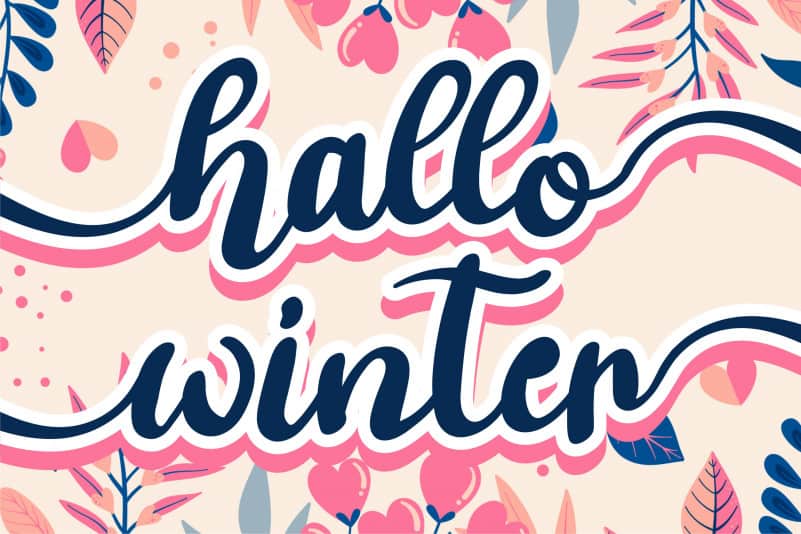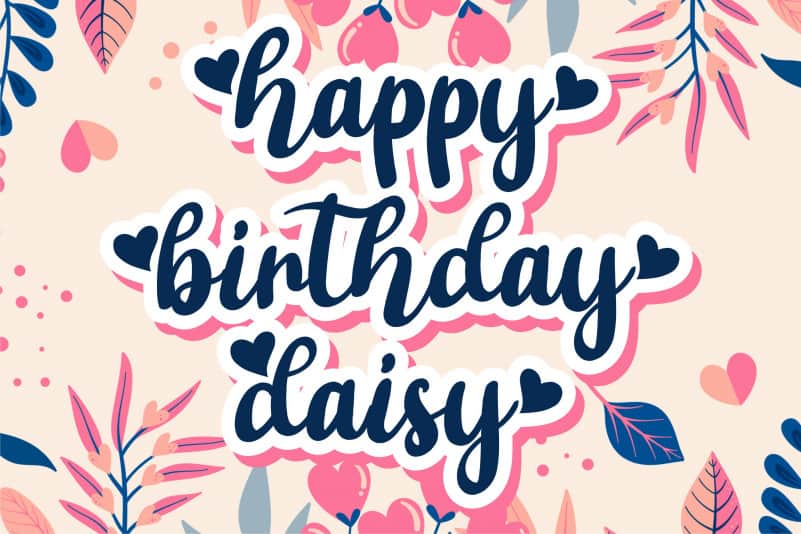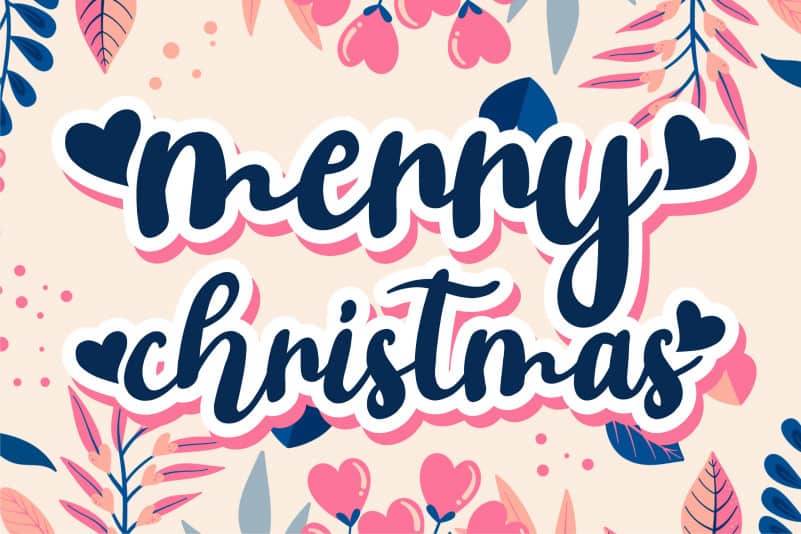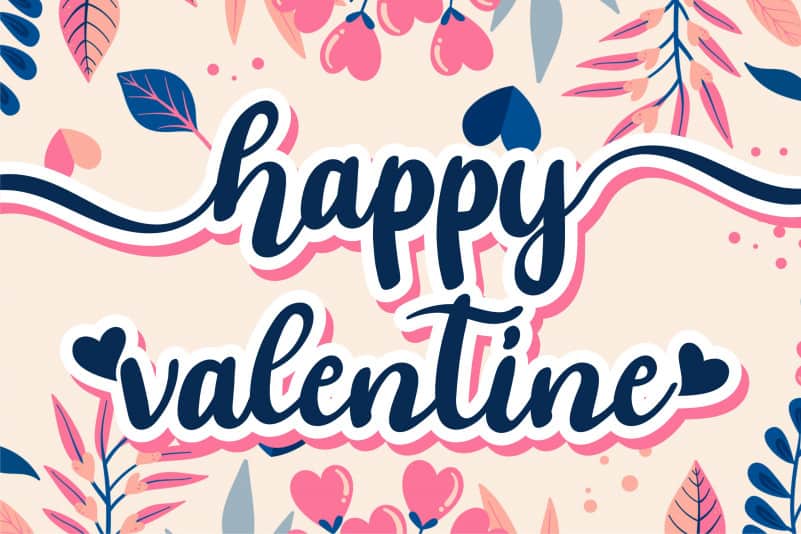
Ashifa Script Font
Ashifa Script Font is a romantic and beautiful handwritten font. It looks stunning on wedding invitations, thank you cards, quotes, greeting cards, logos, business cards and every other design which needs a handwritten touch.
This font is PUA encoded which means you can access all of the glyphs and swashes with ease!